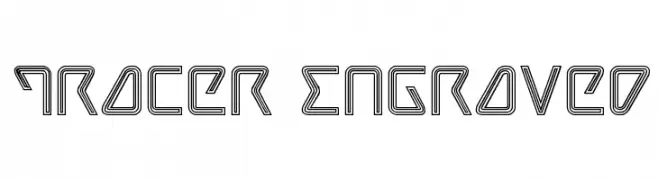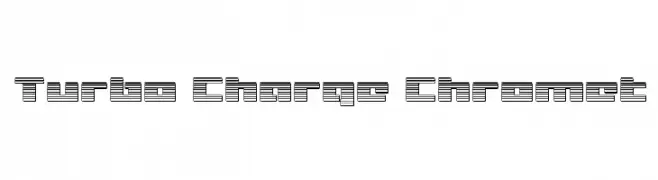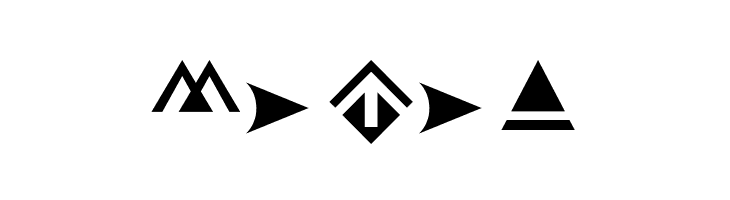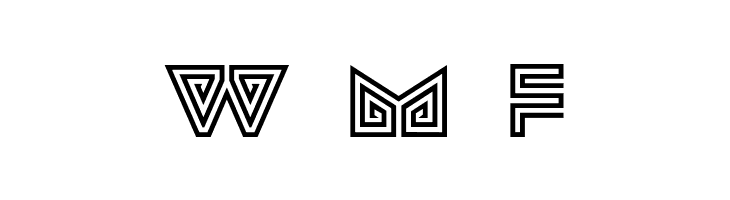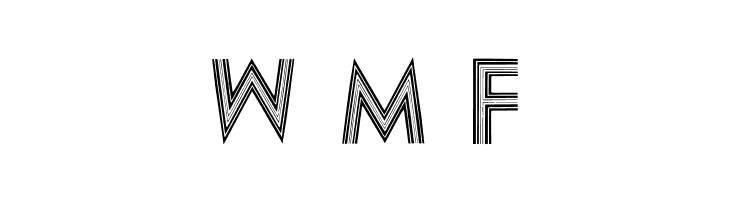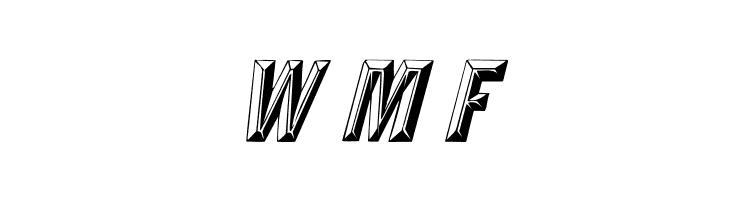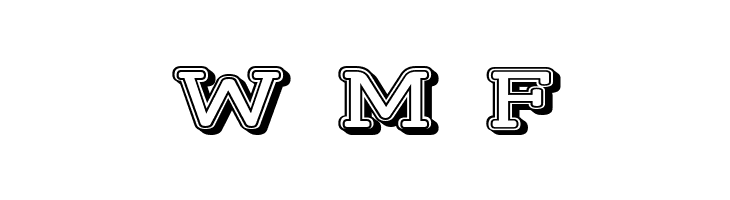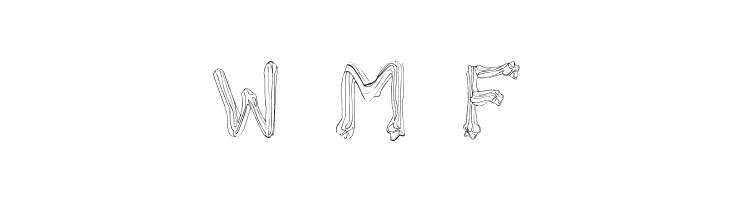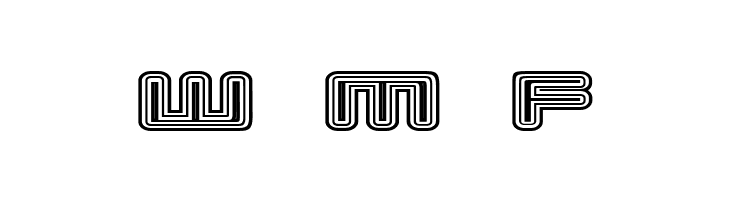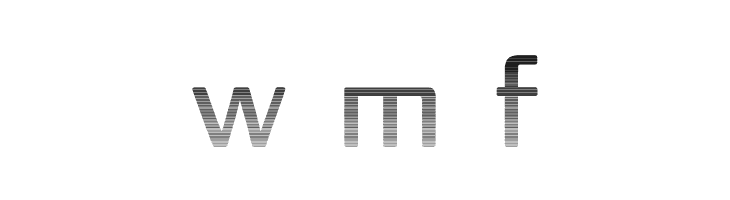
A bold, three-dimensional display font with a dramatic, theatrical style.
A modern decorative font with high contrast and intricate flourishes.
A decorative, multi-line font with a bold, geometric style.
A bold, italicized font with a 3D shadow effect and modern, dynamic style.
A bold, decorative font with a three-dimensional, shadowed effect.
A bold, geometric font with a three-dimensional effect and modern style.
A bold, 3D slab serif font with a shadow effect for impactful designs.
Bold slab serif font with a three-dimensional outline effect.
A bold, geometric font with a retro 1960s pop culture vibe.
A modern, multi-line font with a geometric and dimensional style.
A bold, double-outlined decorative font with a playful and engaging style.
A bold, geometric font with a maze-like, multi-outlined design.
A bold, decorative font with a maze-like, three-dimensional outline and italic slant.
A bold, condensed, italicized collegiate-style font with outlined characters.
A futuristic italic font with sharp angles and a sleek, modern design.
A modern, digital-inspired font with a gradient line effect.
A futuristic, sketch-style italic font with a three-dimensional effect.
A sketch-style, italicized font with a three-dimensional, hand-drawn appearance.
A three-dimensional sketch font with a geometric, architectural style.
A bold, italicized, sketch-style font with an expanded, futuristic design.
A 3D geometric font with a condensed, futuristic style.
A futuristic 3D font with angular, geometric letterforms and a dynamic style.
A futuristic, geometric font with a 3D effect and sharp, angular design.